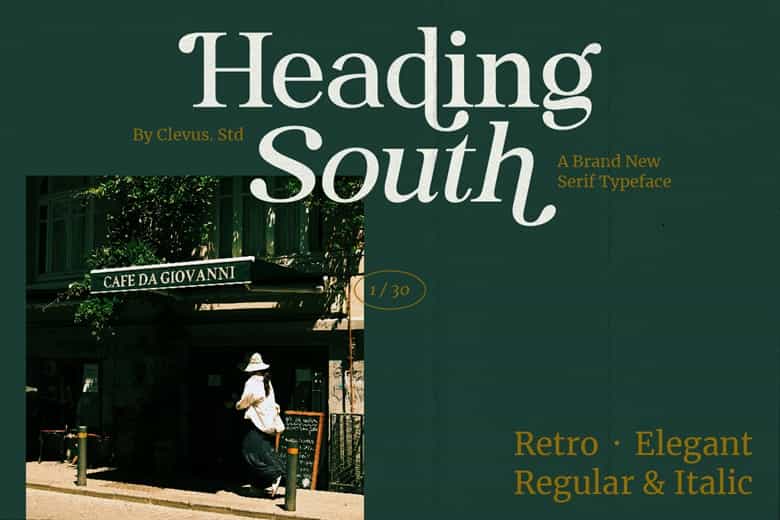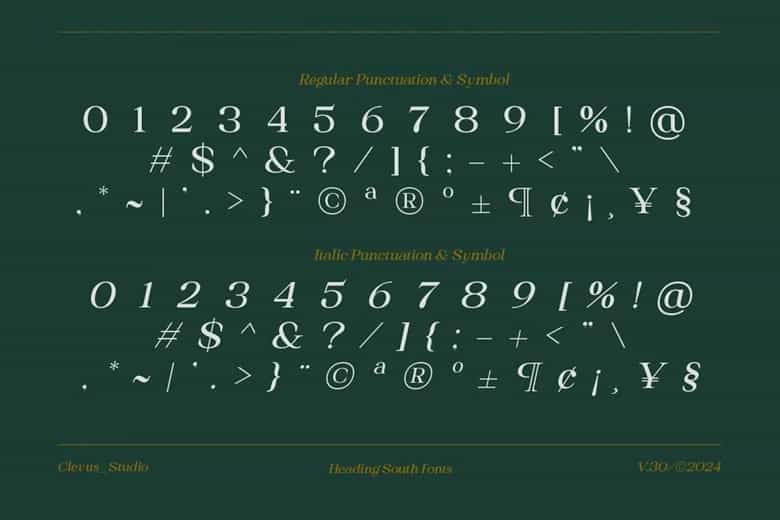
Heading South Font has many standard and special alternates as well as ligatures for a typographically perfect look. Cleartly inspired with the elemental art deco, yet a bit more contemporary, an elegant serif. It is available for both Regular and Italic, this font is great for crafting some of the timeless logos, editorial layouts, posters, and much more.